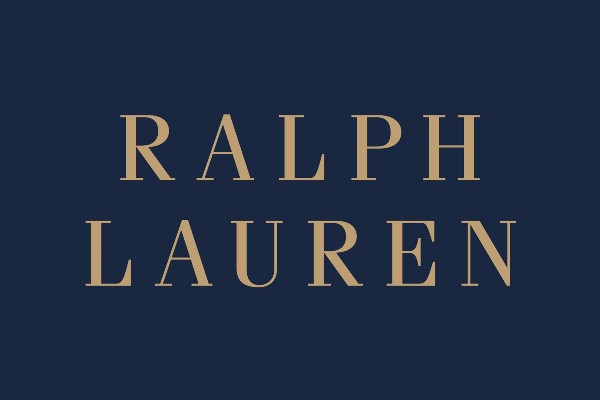
The Ralph Lauren logo uses elegant, high-contrast serif lettering that reflects the brand’s refined and timeless luxury style. Its distinctive typography is usually associated with classic fashion, premium clothing, and of course - sophisticated branding.
For a free alternative, Abhaya Libre is a good replica-style font with a similar refined serif appearance. It can be used for personal design projects, logos, invitations, and other elegant layouts. Fenice is another free option that you can also try. You can download both of these fonts for free below, and use them in your next design project.